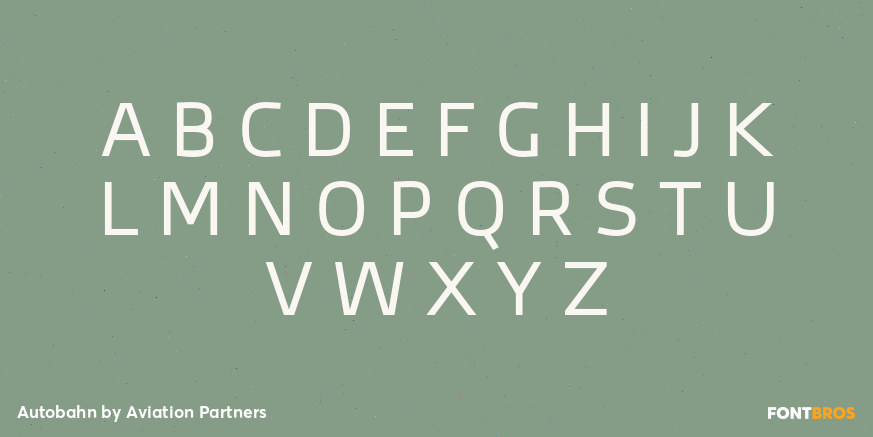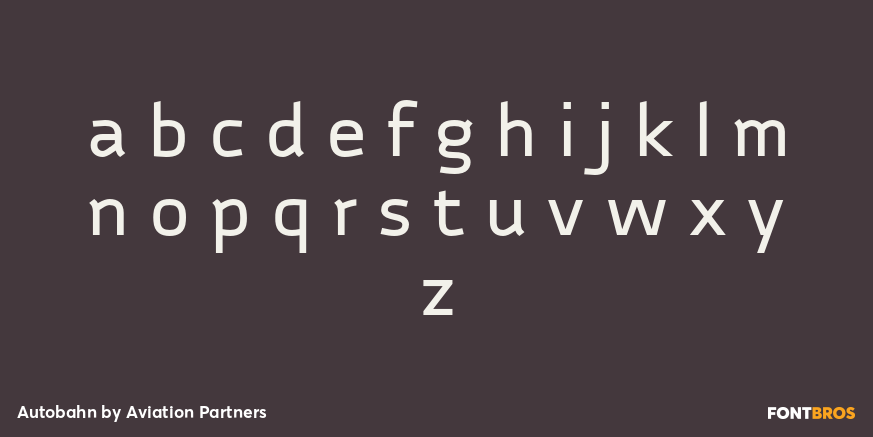
Autobahn
Font Family by Aviation Partners
Autobahn is a robust masculine sans of near monoline thickness and angular characteristics. Available in four weights (with italics), it has a healthy compliment of OpenType Features and the character set covers most Roman-based letterforms and Cyrillic.